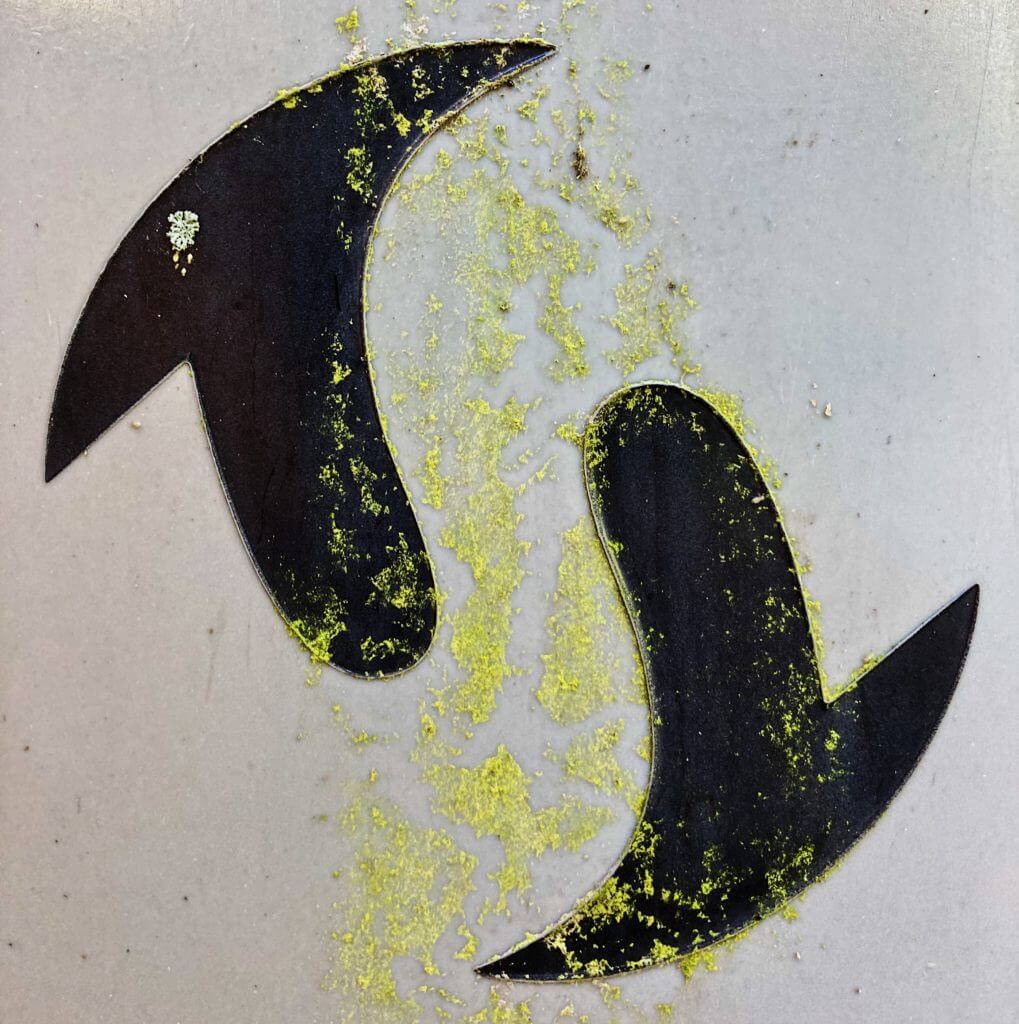
For this project we were tasked with noticing and capturing letterforms in the environment around us. We are used to being bombarded with messages on signs and posters, but we often fail to see the more subtle ways letterforms are guiding our steps and our thoughts throughout the day. When walking around campus with my camera in my hand, ready to capture all the letterforms I could see, I was quickly overwhelmed by how confidently set they were on near enough everything I encountered. Being aware of how much I was seeing, I was sure there were many more I wasn’t.
I chose to take a series of photographs that explored the shape, function and setting of the letterforms I came across on campus. Some were of interest to me because of how they played with, or were reliant upon, the light to communicate clearly. In others I enjoyed the often bold, and sometimes mysterious shapes that combined to create legible letterforms. Then there were those that were seeking to clearly convey a message. As fun as I found it to explore light and shape, I was particularly interested in the letterforms wishing to convey a clear or instructive message. The letterform itself was not sufficient in and of itself to communicate the desired message, perspective and positioning were also key factors in having these letterforms produce meaning in a given context.
After collecting our photographs we were to organise them into a system that made sense to us. I went for three groupings; shape, light and message, as these were the three things that stood out most to me as I was observing the use, function and creation of these letterforms. In allocating my photos to each of these groups I found light and shape relatively easy to assign, whereas ‘message’ was rather ambiguous. Most of the letterforms that have been created and installed in our environment could be argued to have a message, or a purpose for being where they are. I suppose what I meant by this title was looking at the combined letterforms in their context. Going forward I would take more time to consider my choice of words when organising my work to ensure my system still makes sense to me when I come back to it later, and anyone else who many need to understand it.